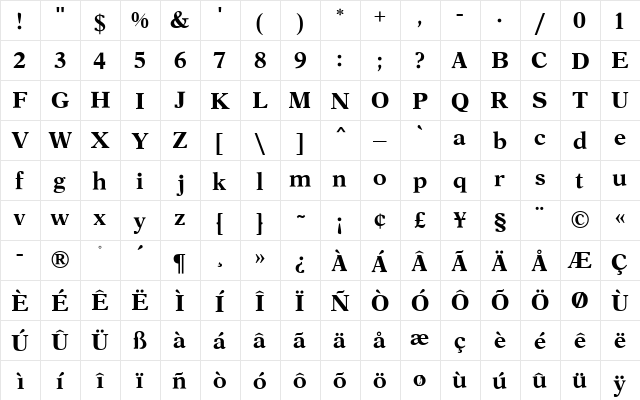
Aster MN Demi
| Foundry | Mecanorma International . \ |
Design Context for Aster MN Typeface
Aster MN takes a measured approach to typography — its balanced proportions and neutral character make it a reliable workhorse for both digital and print work.